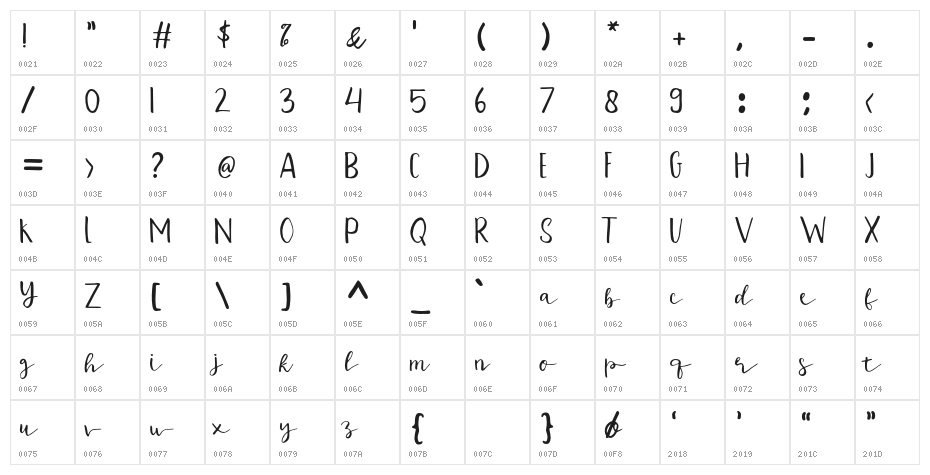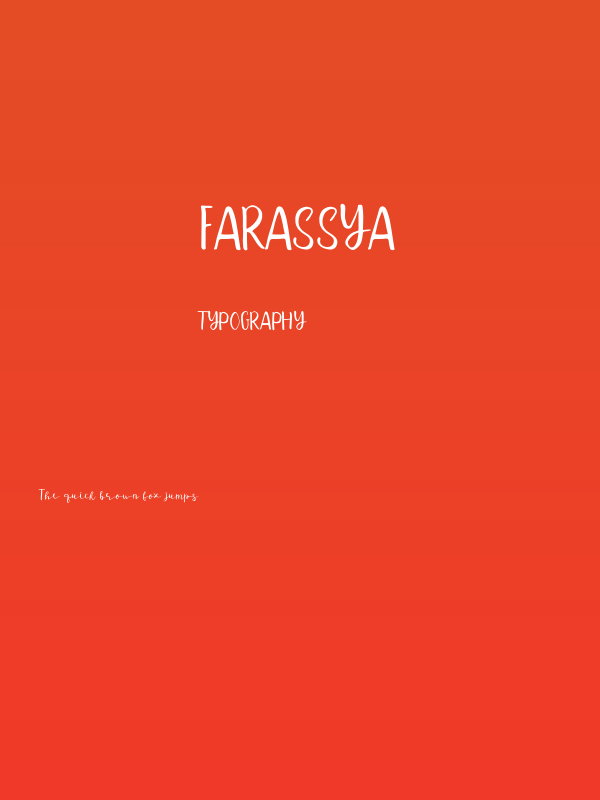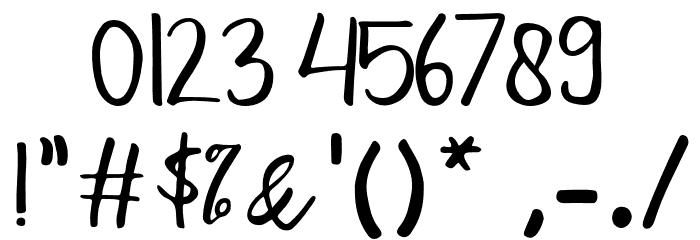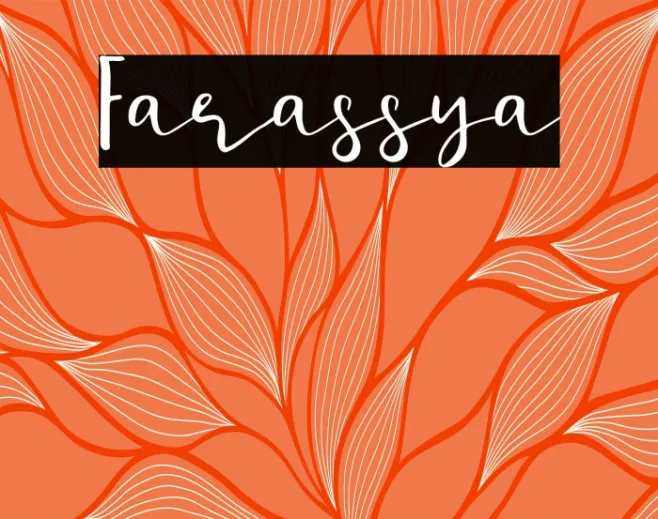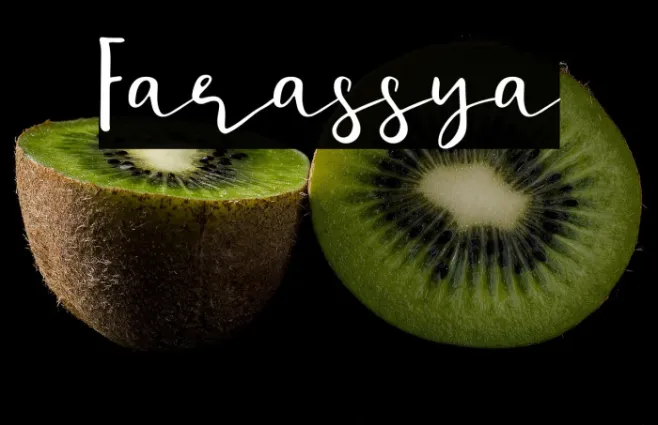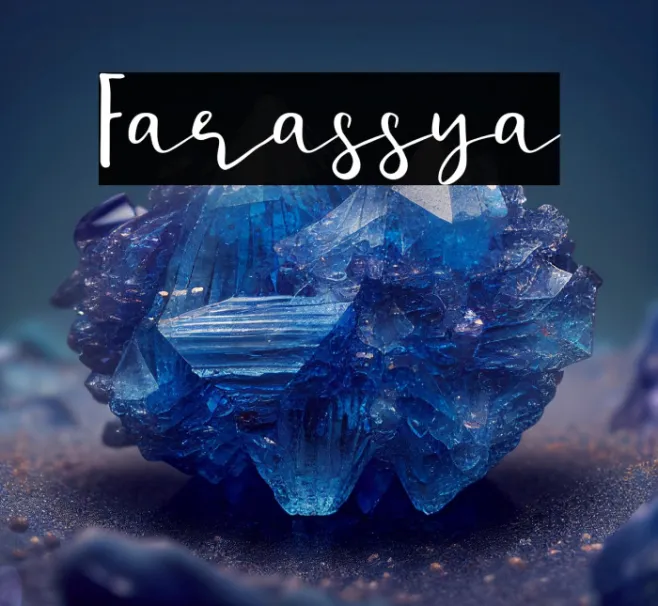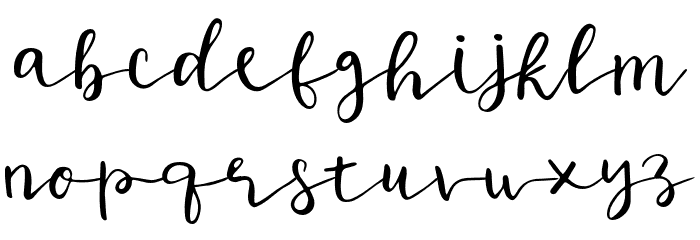
Farassya Font
Farassya Description
This font features a playful and casual handwritten style, combining both uppercase and lowercase letters with a smooth, flowing appearance. The uppercase letters are bold and slightly irregular, giving a whimsical and informal feel. The lowercase letters are more cursive, with elegant loops and curves that add a touch of sophistication. The numbers maintain the playful aesthetic, with a consistent stroke width that complements the letters. Special characters are included, matching the overall style with a quirky and approachable design. This font is perfect for projects that require a personal and friendly touch.